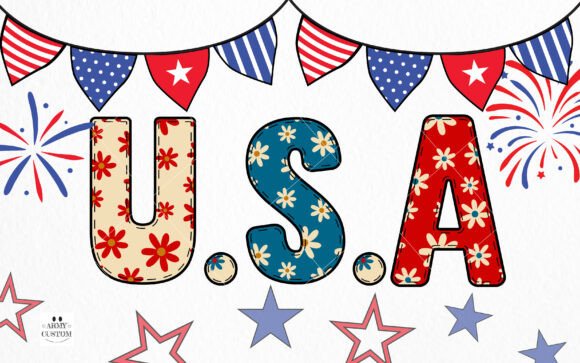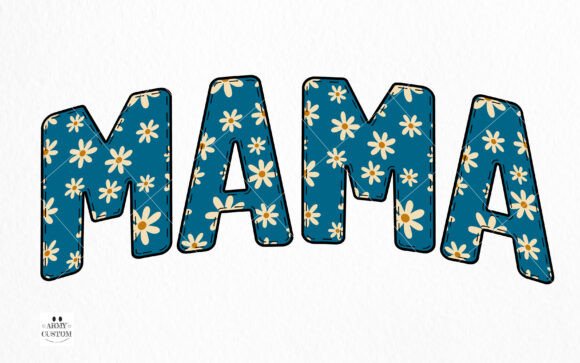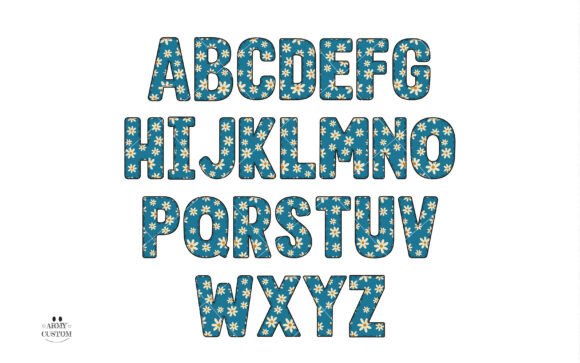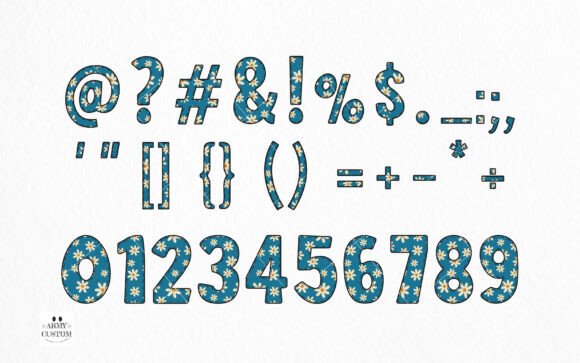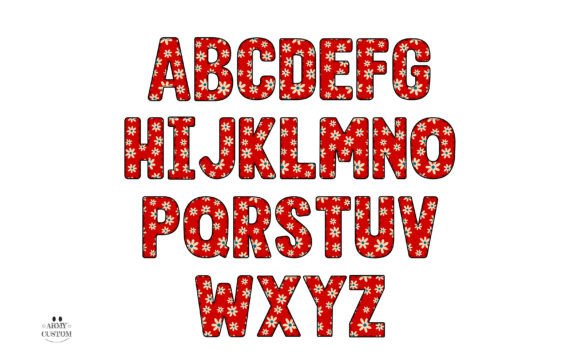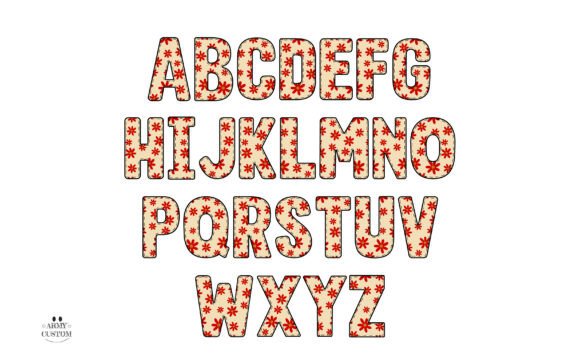
Introduction to Daisy Flower Retro Bundle Font
The “Daisy, Daisies Flower Retro Font” font embodies love at every curve and corner, making it perfect for sentimental expressions and endearing messages.
Harness the charming simplicity of daisies in every letter, and spread joy effortlessly with this whimsical and delightful doodle font Fall in love with the “Daisy Flower Alphabet” font and let it add a touch of nature’s elegance to your voice.
Key Features of Daisy Flower Retro Bundle Font